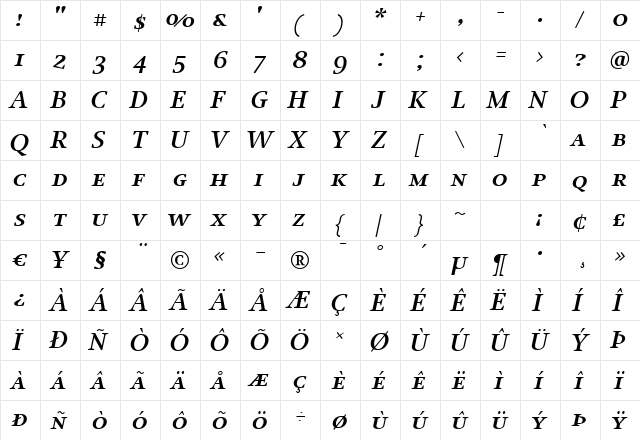
JudeBoldSmallCapsItalic Regular Font Preview
Design Context for JudeBoldSmallCapsItalic Typeface
JudeBoldSmallCapsItalic takes a measured approach to typography — its balanced proportions and neutral character make it a reliable workhorse for both digital and print work. The dynamic lean of this cut emphasises speed and emphasis in any layout. Its bold stroke weight gives it real presence on the page.
Pro Tip: Try JudeBoldSmallCapsItalic for annotation and caption copy alongside an upright companion — the contrast in angle creates a dynamic but ordered typographic system.